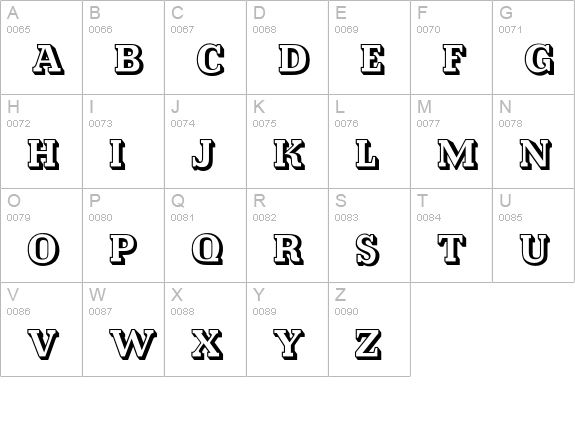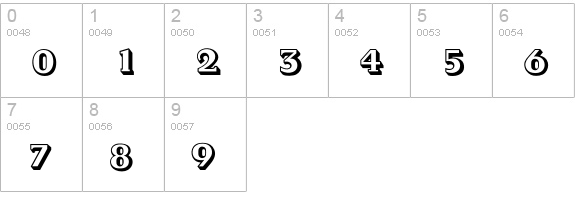
QuarterOpen Font Details
QuarterOpen is a stunning font that beautifully combines modern elegance with a touch of playfulness. Its unique design features sleek, clean lines that give it a contemporary feel, while its slightly rounded edges add a hint of warmth and friendliness. The letters are perfectly balanced, creating a harmonious rhythm that is visually pleasing to the eye. One of the most remarkable aspects of QuarterOpen is that it is completely free. Yes, you read that right - this incredible font can be downloaded for free at FontsMarket.com. This means that you can enjoy all the beauty and versatility of QuarterOpen without having to spend a single penny. Whether you're a professional designer, a student, or simply someone who appreciates high-quality typography, this font is a must-have in your collection. With its wide array of weights and styles, QuarterOpen offers endless possibilities for creative expression. Whether you're creating a logo, designing a poster, or crafting a website, this font will effortlessly elevate your project to new heights. Its versatility allows it to be used in a variety of contexts, from elegant and sophisticated to fun and whimsical. Not only is QuarterOpen visually stunning, but it is also incredibly easy to read. The carefully crafted letterforms ensure excellent legibility in both small and large sizes, making it suitable for all types of design projects. Its clean lines and generous spacing contribute to a seamless reading experience, ensuring that your message is conveyed with clarity and impact. In conclusion, QuarterOpen is a truly remarkable font that seamlessly blends elegance and playfulness. Its versatility, legibility, and stunning design make it perfect for a wide range of design projects. And the best part? It's completely free! So why wait? Head over to FontsMarket.com and download QuarterOpen today to unlock a world of creative possibilities.